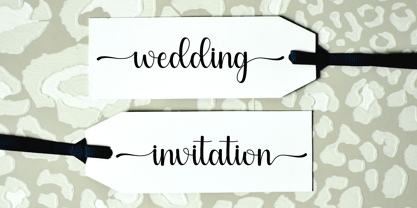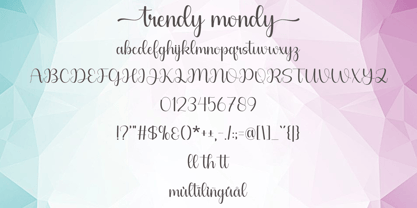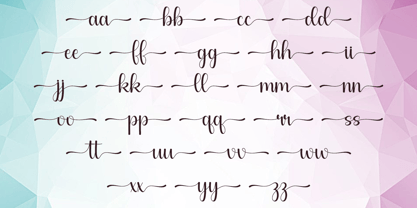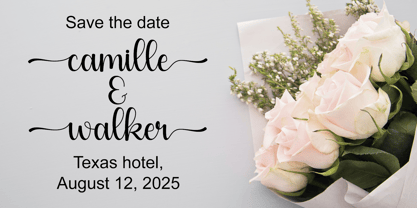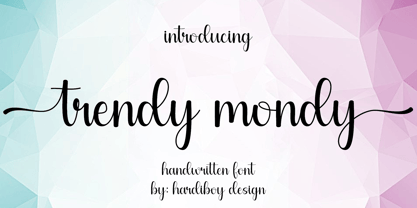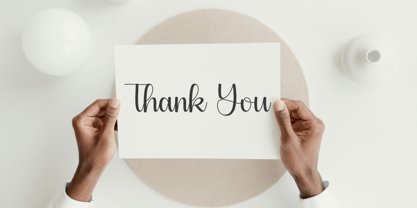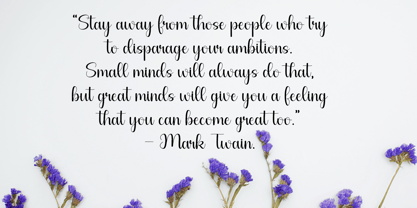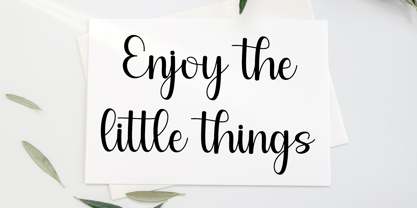
Trendy Mondy
by Hardiboy Design
The Trendy Mondy Font Family was designed by Hardiman Siswanto and published by Hardiboy Design. Trendy Mondy contains 1 styles. More about this family
Trendy is an elegant script font featuring beautiful character variations. It combines classic copper style with a modern touch, designed with great attention to detail for an elegant look.
This font is visually appealing, clean, feminine and easy to read, thanks to its luxurious letter connections. Its classic style is perfect for a variety of formal uses, including invitations, labels, restaurant menus, logos, fashion, makeup, stationery, novels, magazines, books, greeting and wedding cards, packaging and all types of advertising.